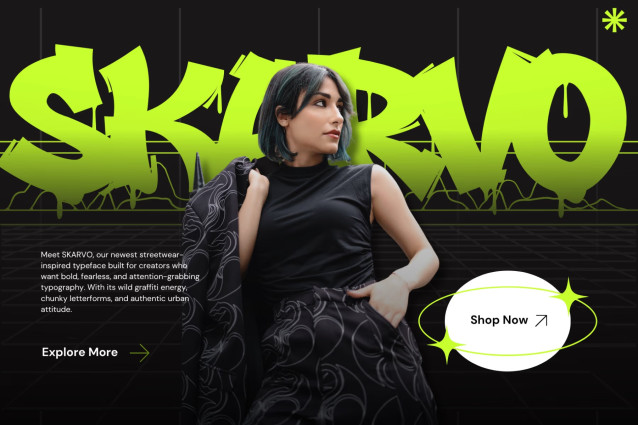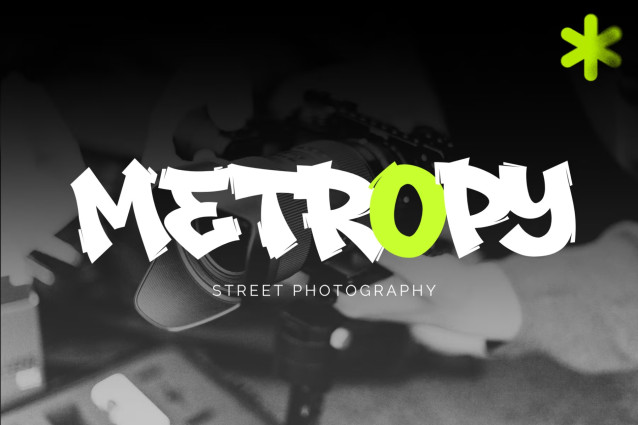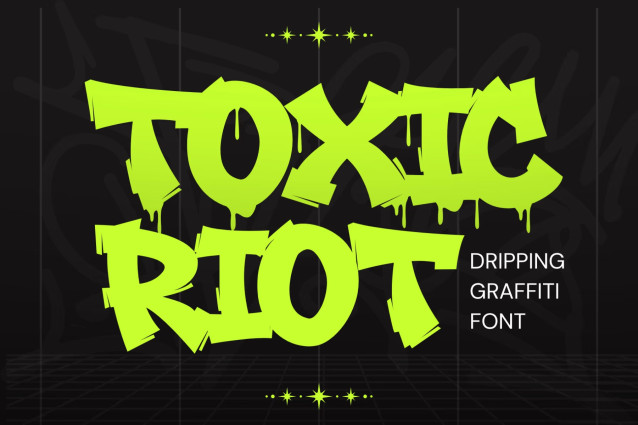
Toxic Riot Graffiti Font
Toxic Riot is a bold and expressive graffiti font designed to capture the raw energy of street art with dramatic dripping details and fearless urban character. Inspired by authentic graffiti walls, hip-hop culture, and underground lettering, this dripping graffiti font transforms ordinary typography into bold visual statements. Whether you’re designing streetwear collections, music artwork, gaming graphics, posters, or social media campaigns, Toxic Riot graffiti font delivers an aggressive style that instantly commands attention.
Built for designers who want typography with attitude, Toxic Riot combines thick letterforms with natural paint drips to create a unique urban graffiti font that feels energetic, rebellious, and unmistakably authentic. Every character is crafted to evoke the spirit of graffiti culture while remaining highly readable for professional design work.
Unlike ordinary display fonts, Toxic Riot graffiti font embraces the imperfect beauty of real spray-painted lettering. The dripping elements create movement and texture, giving every word a handcrafted appearance that feels alive and dynamic. If you’re searching for a graffiti font that stands out in both digital and print projects, Toxic Riot is built to exceed expectations.